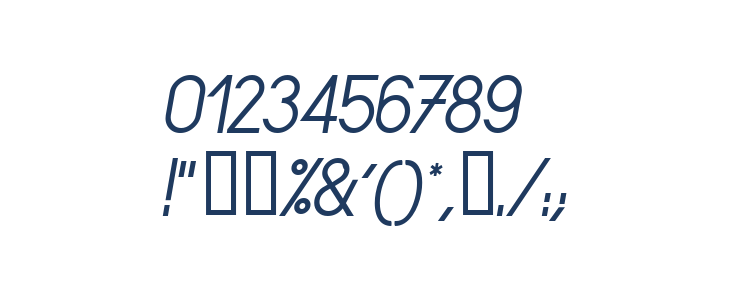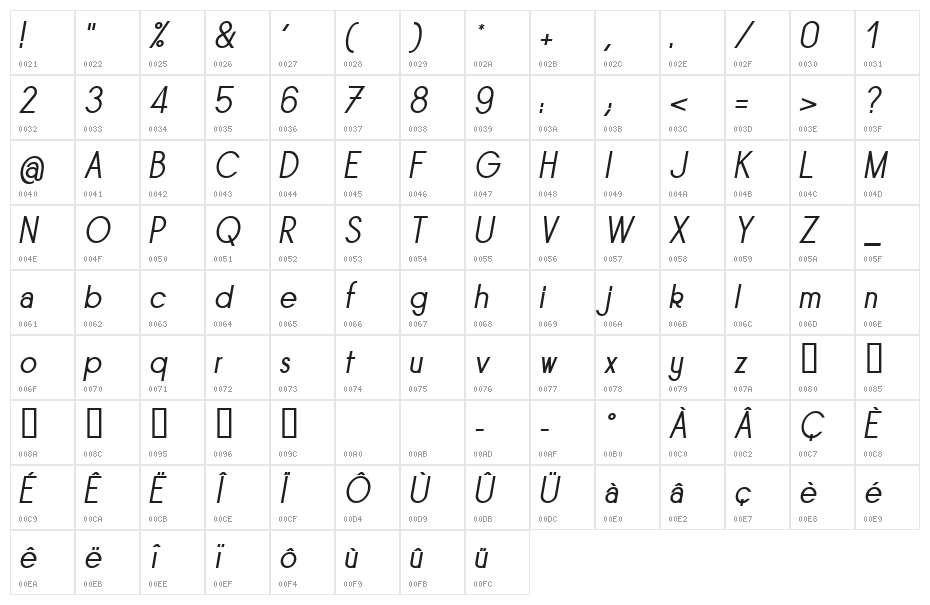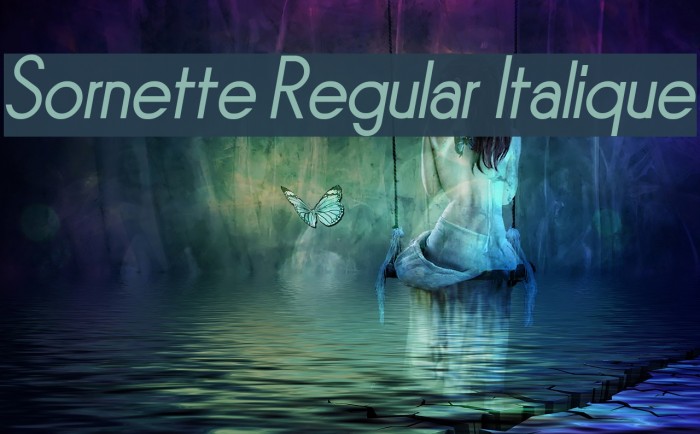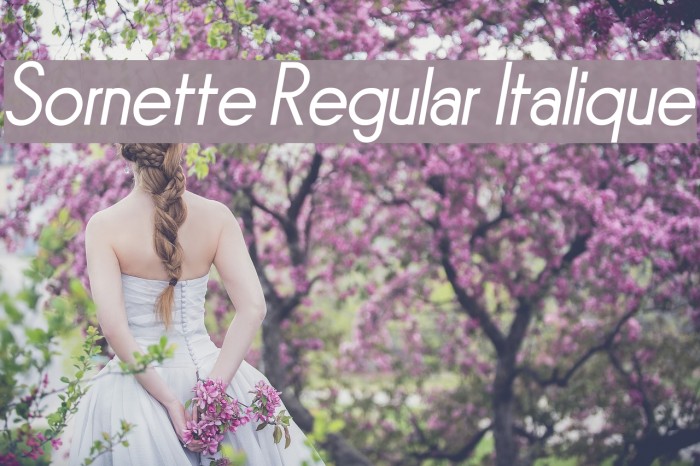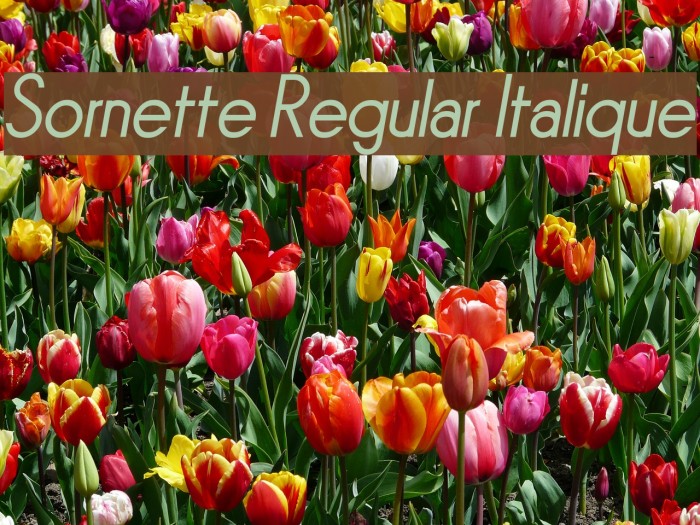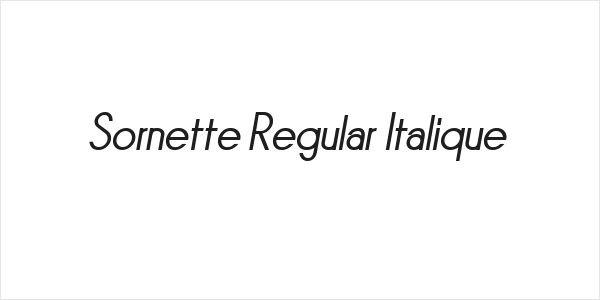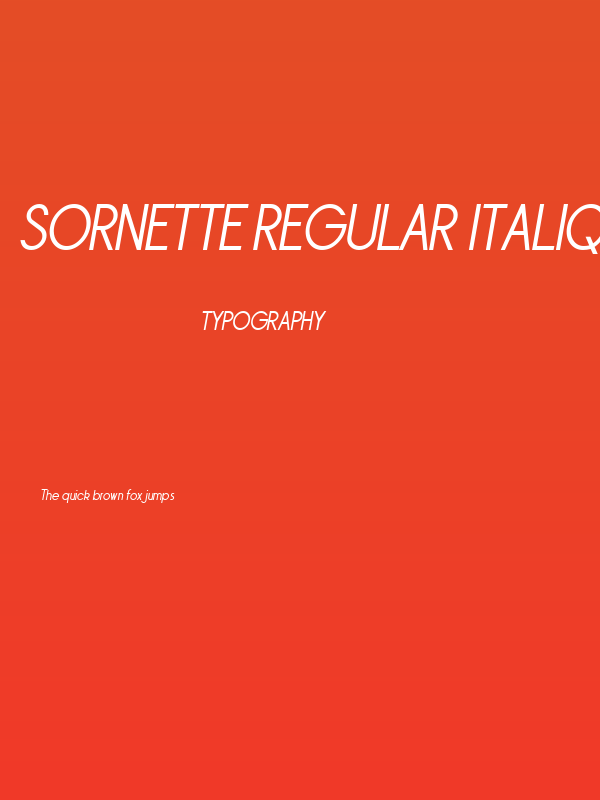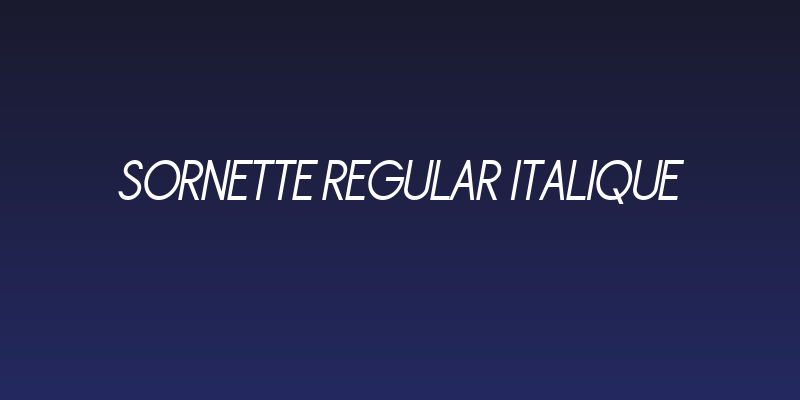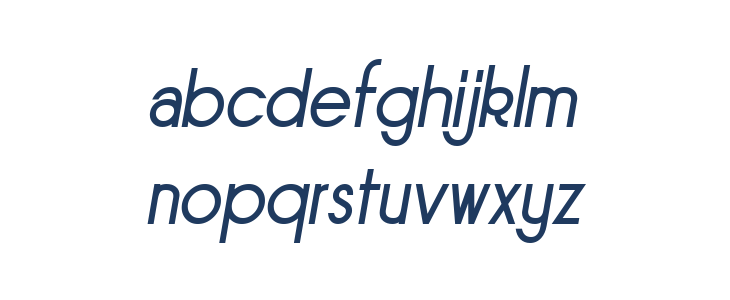
Sornette Regular Italique Font
Sornette Regular Italique Description
This font exhibits a sleek and modern design with a distinct italic slant, giving it a dynamic and forward-moving appearance. The characters are crafted with precision, featuring clean lines and a uniform stroke width that contributes to its contemporary aesthetic. The uppercase and lowercase letters maintain a consistent style, ensuring readability and elegance. The numerals are well-proportioned, complementing the overall design. Special characters are included, adding versatility to the font's application. Its design is suitable for projects that require a modern and stylish touch.
| Use Case | Headlines, Logos, Editorial design |
| Proposed Projects | Ideal for branding, advertising, and editorial design where a modern and stylish look is desired. |